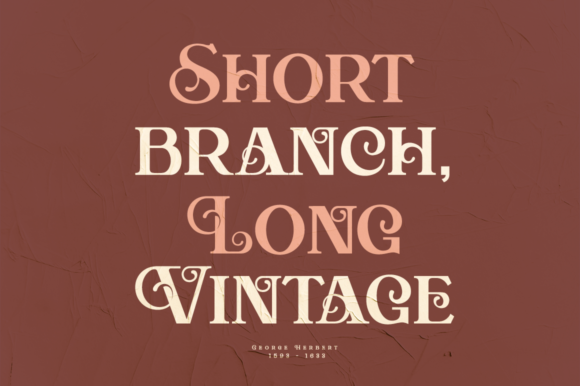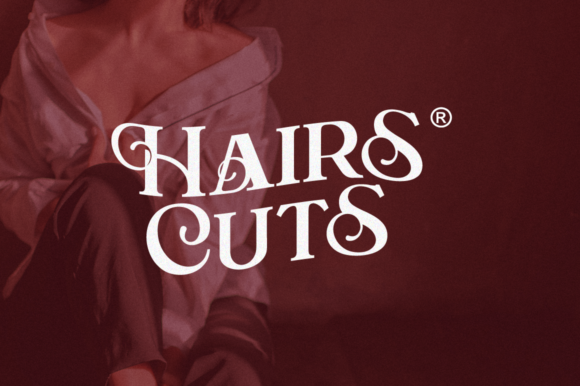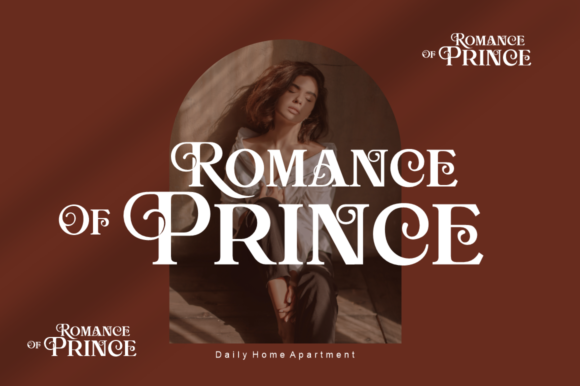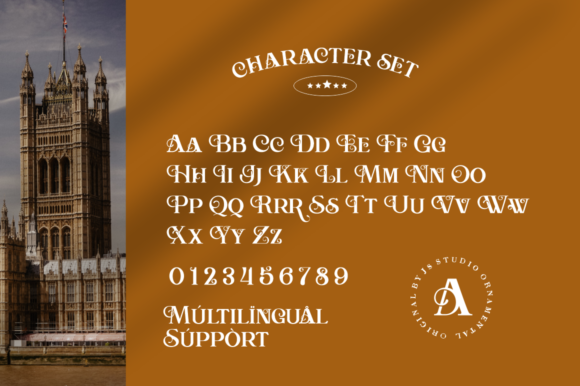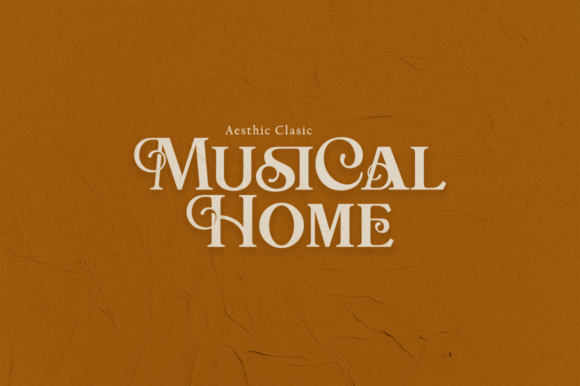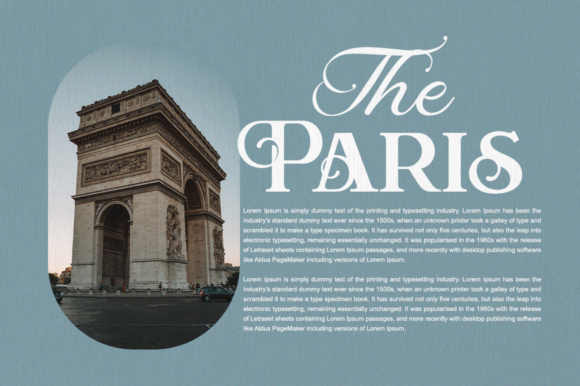
Aesthetic Classic Font: Elevate Your Designs with a Touch of Victorian Elegance
In the world of typography, fonts play a crucial role in conveying the tone and aesthetic of a design. For those seeking to add a touch of vintage sophistication, the Aesthetic Classic Font is an excellent choice. This stunning display font, inspired by the ornate styles of the Victorian era, is sure to elevate your designs and leave a lasting impression.
The Charm of Aesthetic Classic Font
Aesthetic Classic is a vintage and distinct display font that embodies the essence of old Victorian style. Its smooth curves and unique characteristics make it a gorgeous addition to any design. Whether you’re working on a logo, branding materials, or creative projects, this font is sure to add a level of sophistication and elegance.
Key Features of Aesthetic Classic Font
- Victorian Inspiration: Aesthetic Classic Font draws inspiration from the ornate and intricate styles of the Victorian era, making it perfect for designs that require a touch of classic elegance.
- Smooth Curves: The font features smooth, flowing curves that add a level of sophistication and refinement to your designs.
- Unique Characteristics: Aesthetic Classic Font boasts unique characteristics that set it apart from other fonts, making it an excellent choice for designers seeking to create distinctive and memorable designs.
- Display Font: This font is specifically designed as a display font, making it perfect for headlines, titles, and other prominent design elements.
Uses of Aesthetic Classic Font
Aesthetic Classic Font is a versatile font that can be used in a variety of design applications, including:
- Logo Design: Add a touch of vintage elegance to your logo with Aesthetic Classic Font.
- Branding Materials: Use this font to create sophisticated and memorable branding materials, such as business cards, letterheads, and packaging.
- Creative Projects: Aesthetic Classic Font is perfect for creative projects, such as posters, flyers, and social media graphics.
- Web Design: Use this font to add a touch of elegance and sophistication to your website’s design.
Tips for Using Aesthetic Classic Font
To get the most out of Aesthetic Classic Font, here are a few tips to keep in mind:
- Use it sparingly: Aesthetic Classic Font is a bold and attention-grabbing font, so use it sparingly to avoid overwhelming your design.
- Pair it with a neutral font: Pair Aesthetic Classic Font with a neutral font to create visual interest and balance in your design.
- Experiment with colors: Aesthetic Classic Font looks stunning in a variety of colors, so don’t be afraid to experiment and find the perfect hue for your design.
Aesthetic Classic Font is a stunning display font that is sure to elevate your designs and add a touch of vintage elegance. With its smooth curves, unique characteristics, and Victorian inspiration, this font is perfect for designers and crafters seeking to create sophisticated and memorable designs. Whether you’re working on a logo, branding materials, or creative projects, Aesthetic Classic Font is an excellent choice.